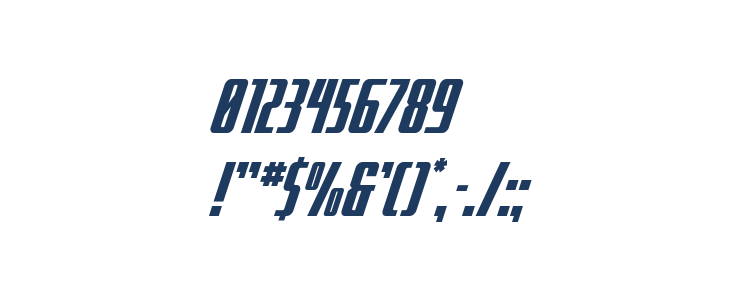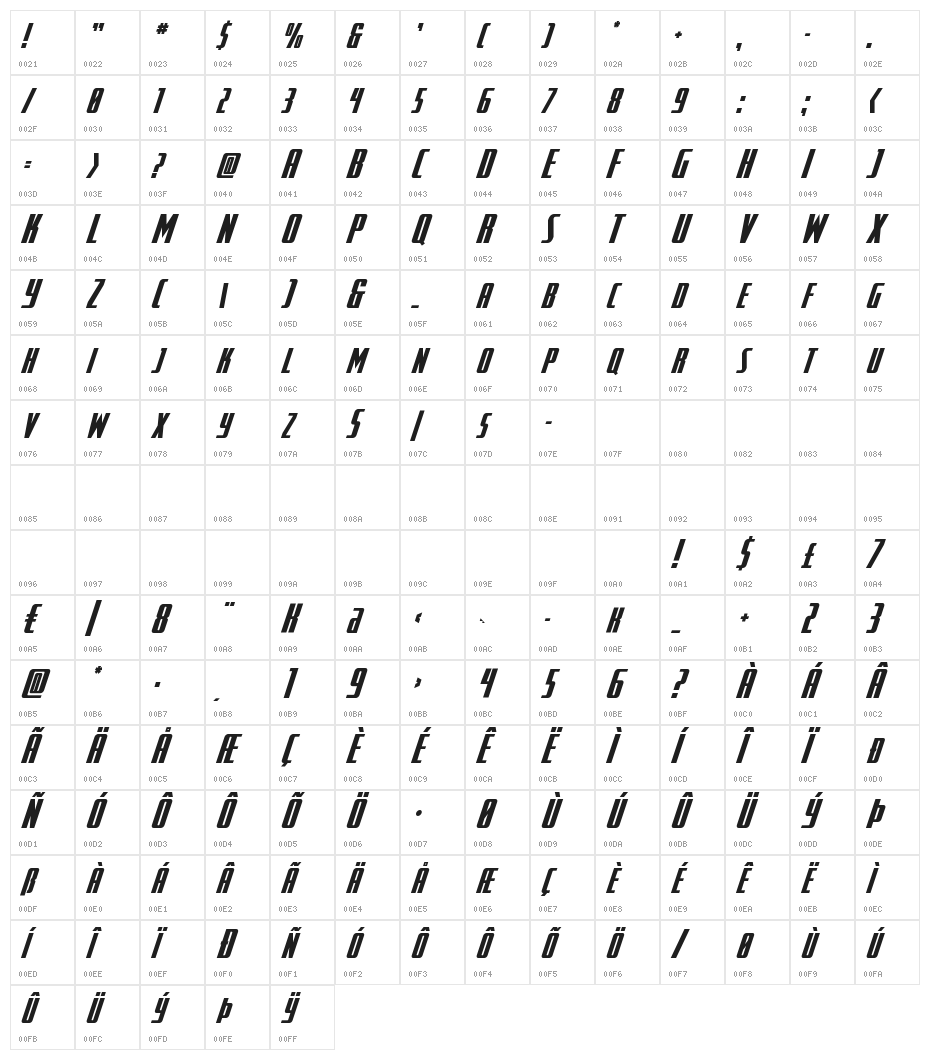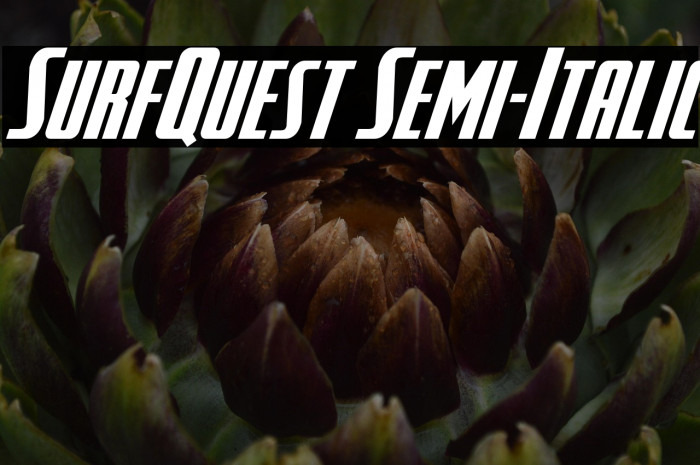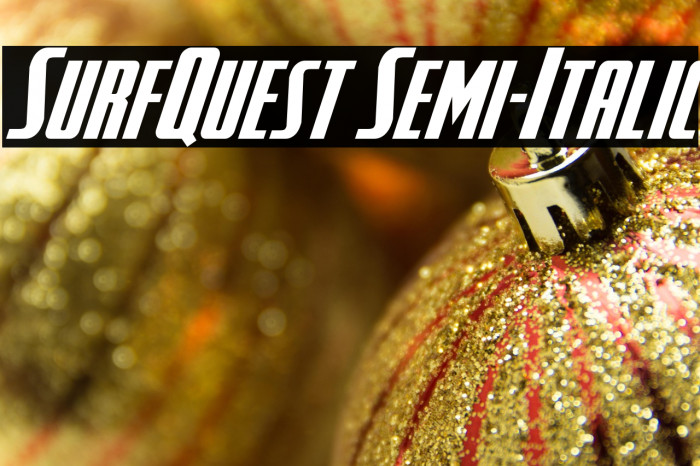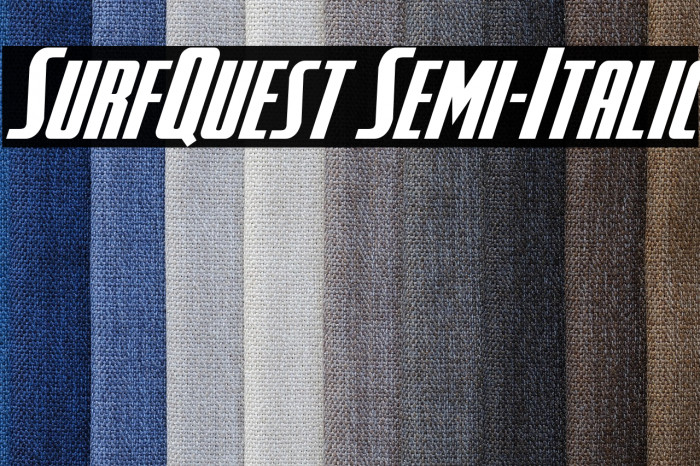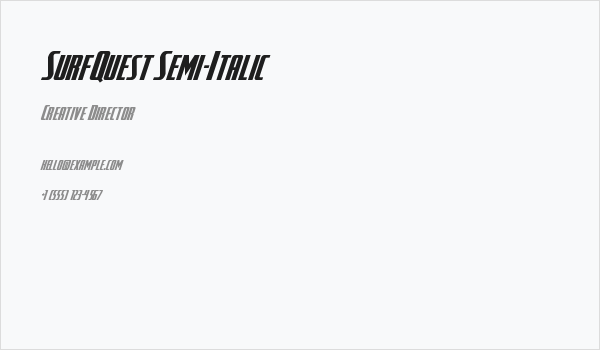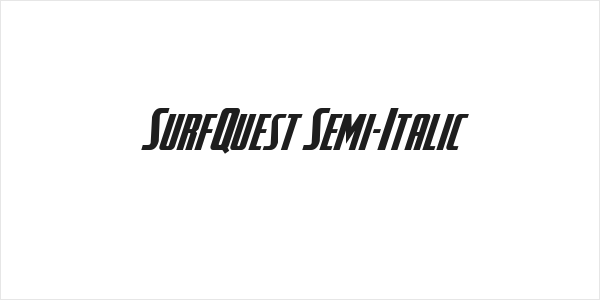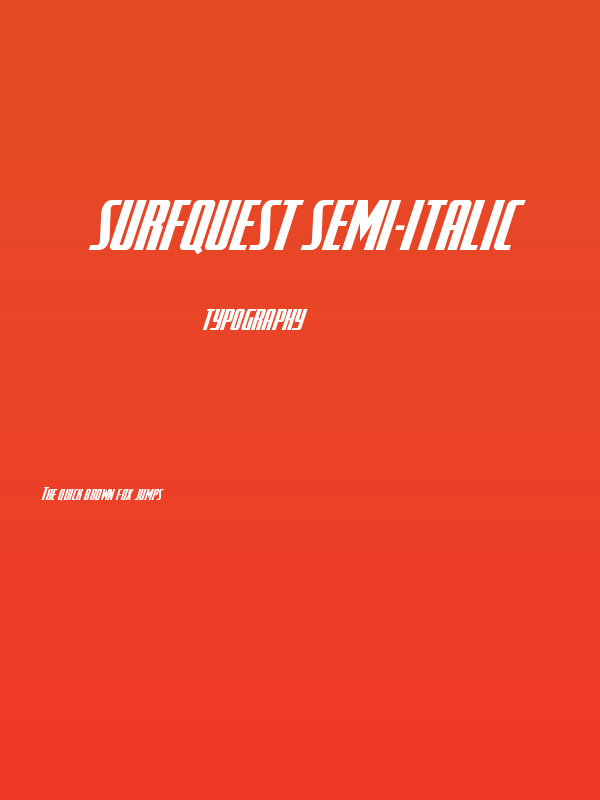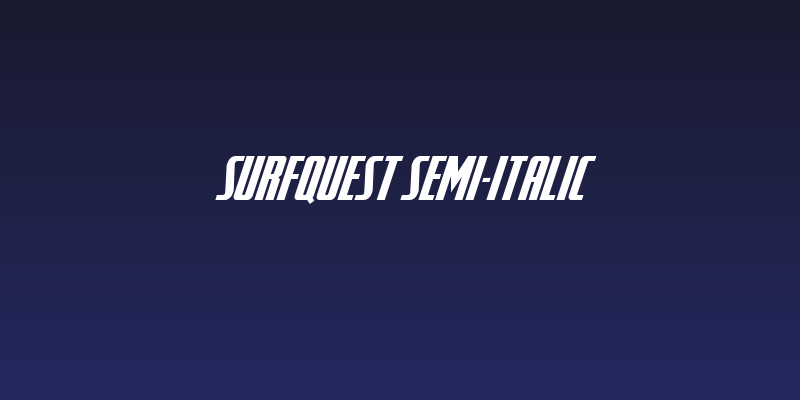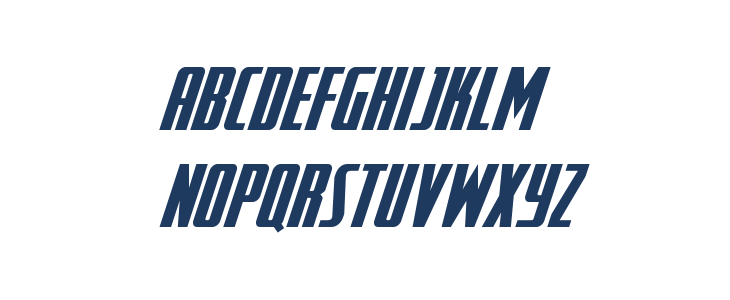
SurfQuest Semi-Italic Font
SurfQuest Semi-Italic Description
This font features a dynamic and energetic style with a forward-leaning italic slant, giving it a sense of motion and speed. The characters are bold and impactful, with a condensed width that enhances their striking appearance. The uppercase letters are particularly prominent, while the lowercase letters maintain a consistent style. The numbers and special characters are designed to match the boldness and slant of the alphabet, ensuring a cohesive look across all text. The font's high contrast in stroke thickness adds to its bold presence, making it ideal for attention-grabbing designs.